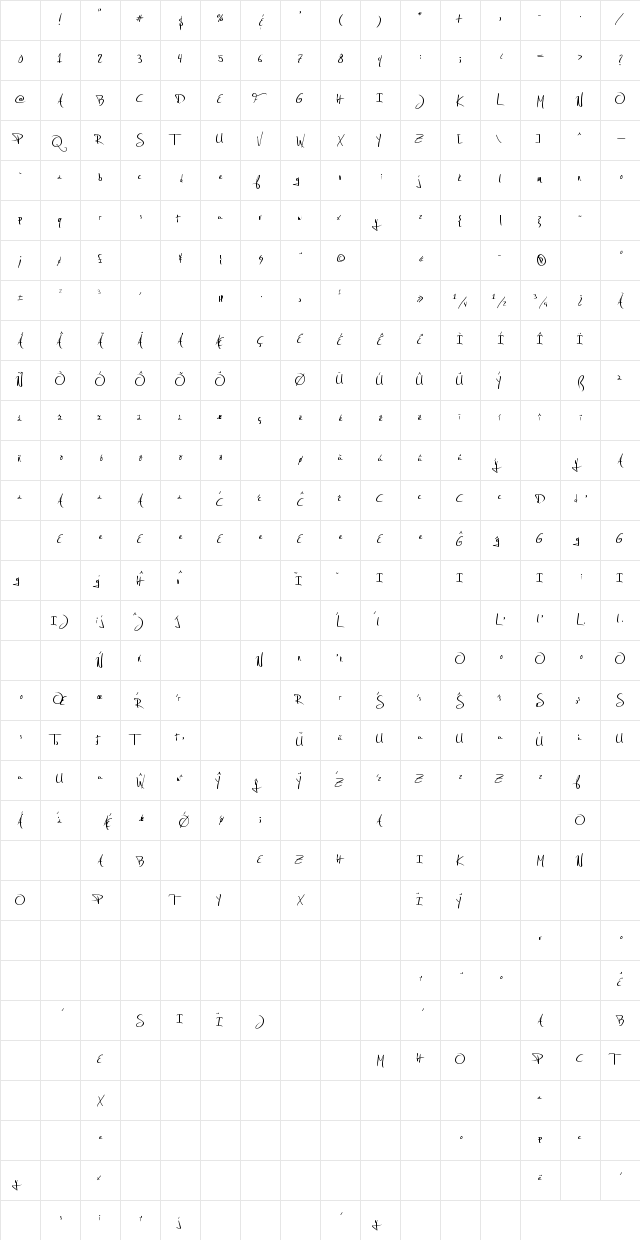
Complete Jellyka - Estrya's Handwriting Regular glyph index. Displaying only characters natively supported by Jellyka - Estrya's Handwriting Regular font.
Jellyka - Estrya's Handwriting flows with the natural rhythm of handwritten lettering, making it ideal for designs that call for warmth and personal expression.
Font Pairing: Combine Jellyka - Estrya's Handwriting with a simple geometric sans for maximum contrast - the tension between flowing curves and clean structure is a classic typographic pairing.
Pro Tip: Use Jellyka - Estrya's Handwriting for short runs of text - names, titles, or taglines. Extended body copy in script faces tires the eye quickly.